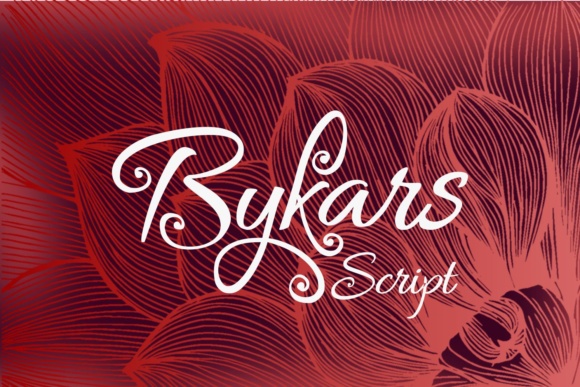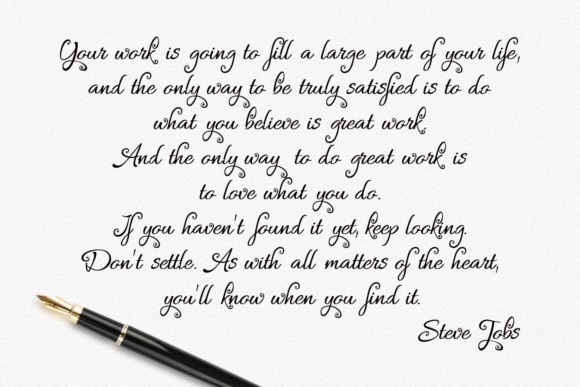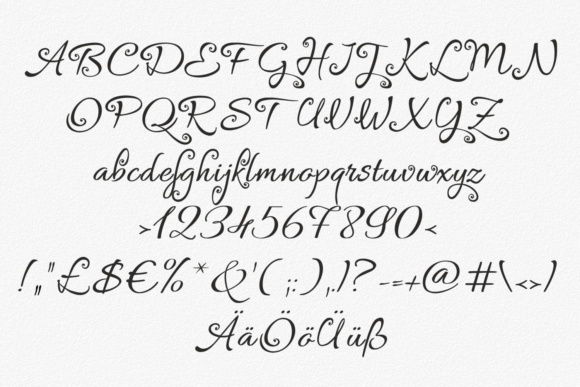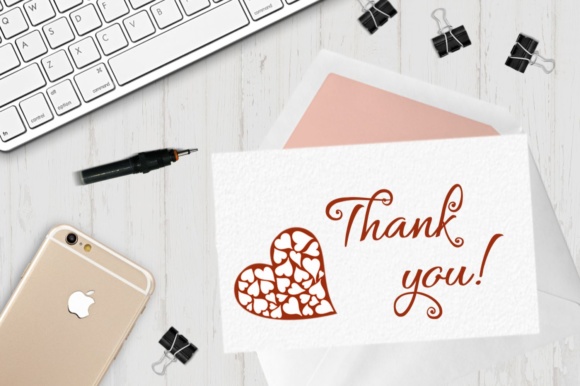
Bykars Font
About Bykars Font
Bykars is a fun and curly handwritten font, ideal for use in romantic creative projects. This gorgeous font has a sweet, saccharin look and works well in print projects.